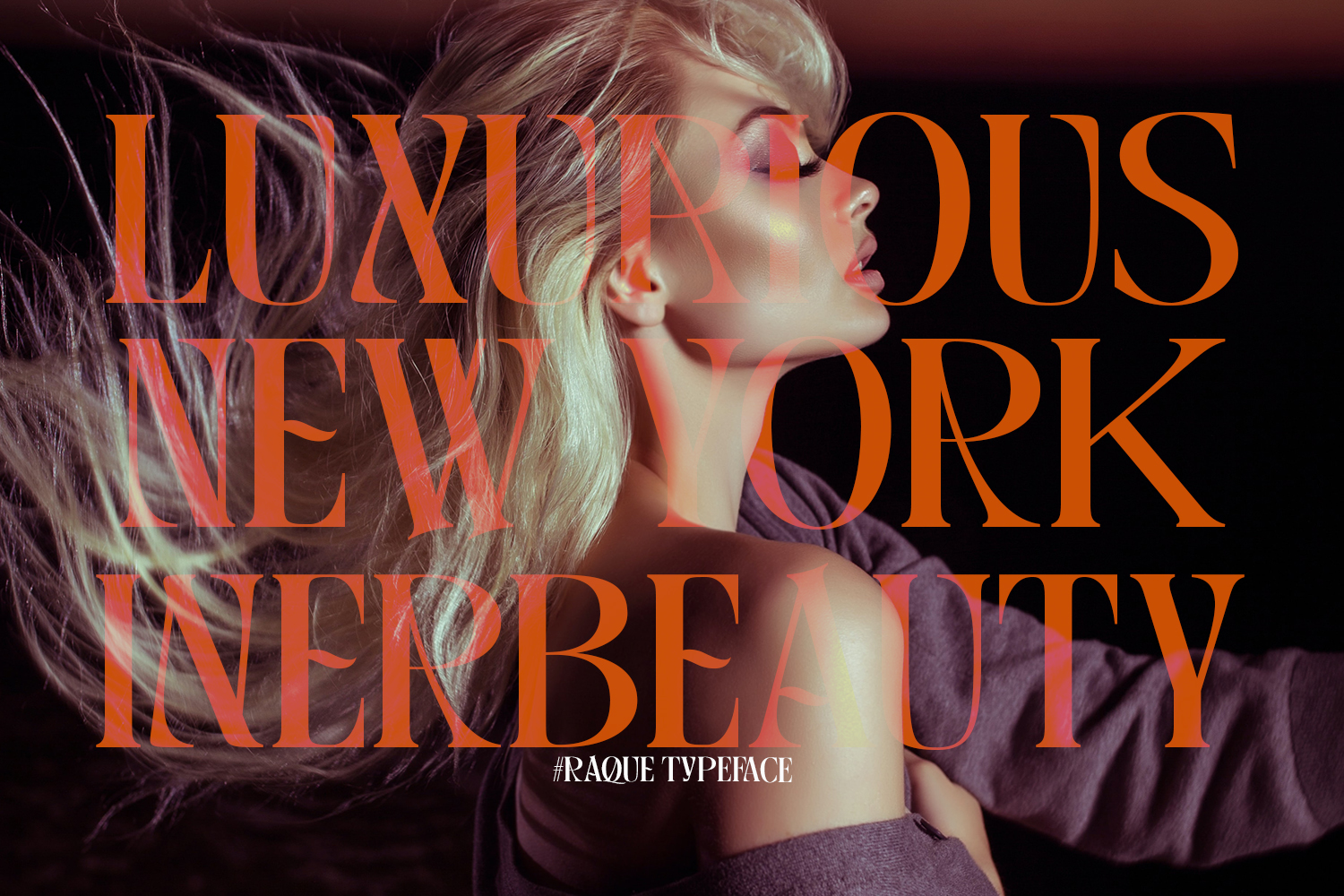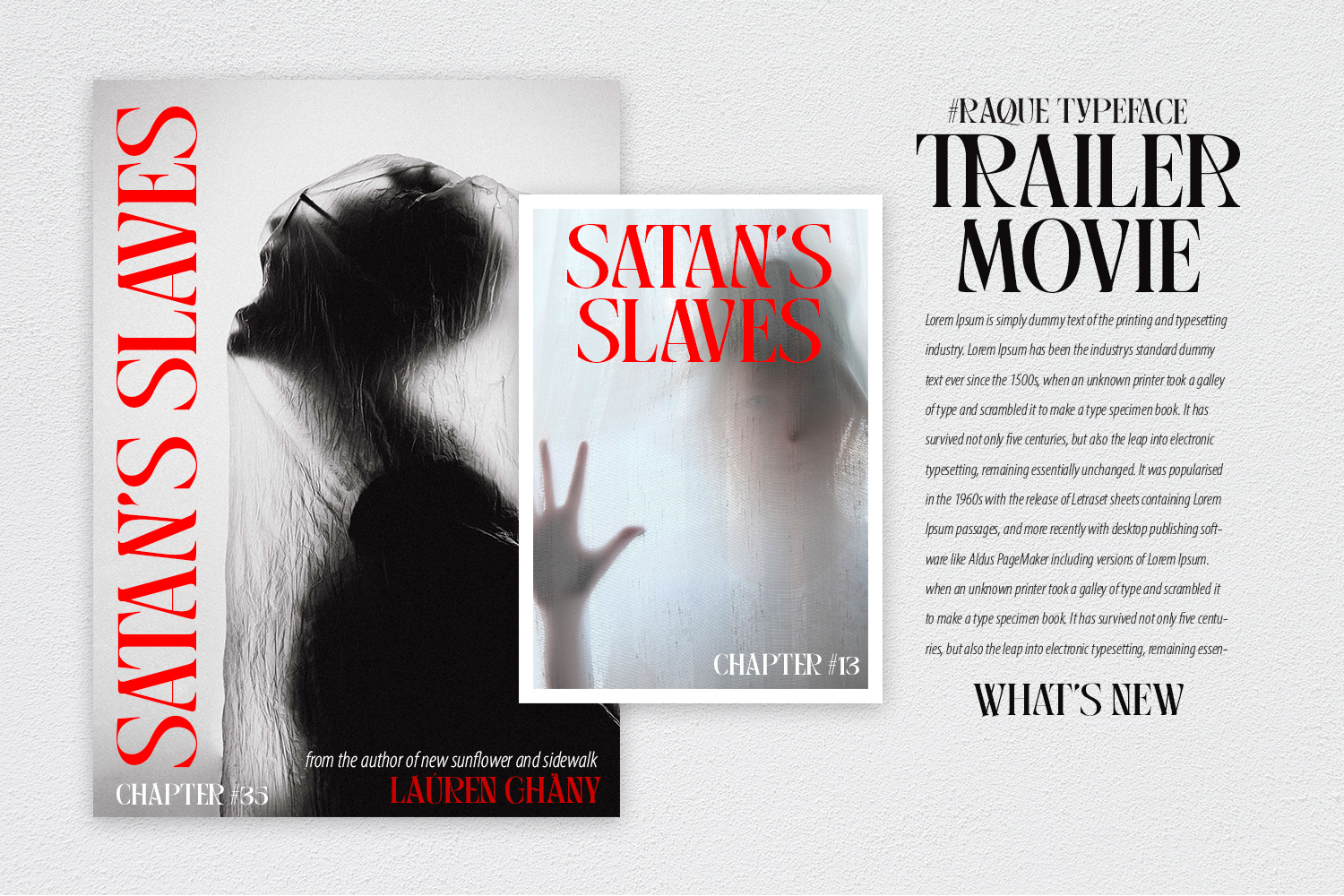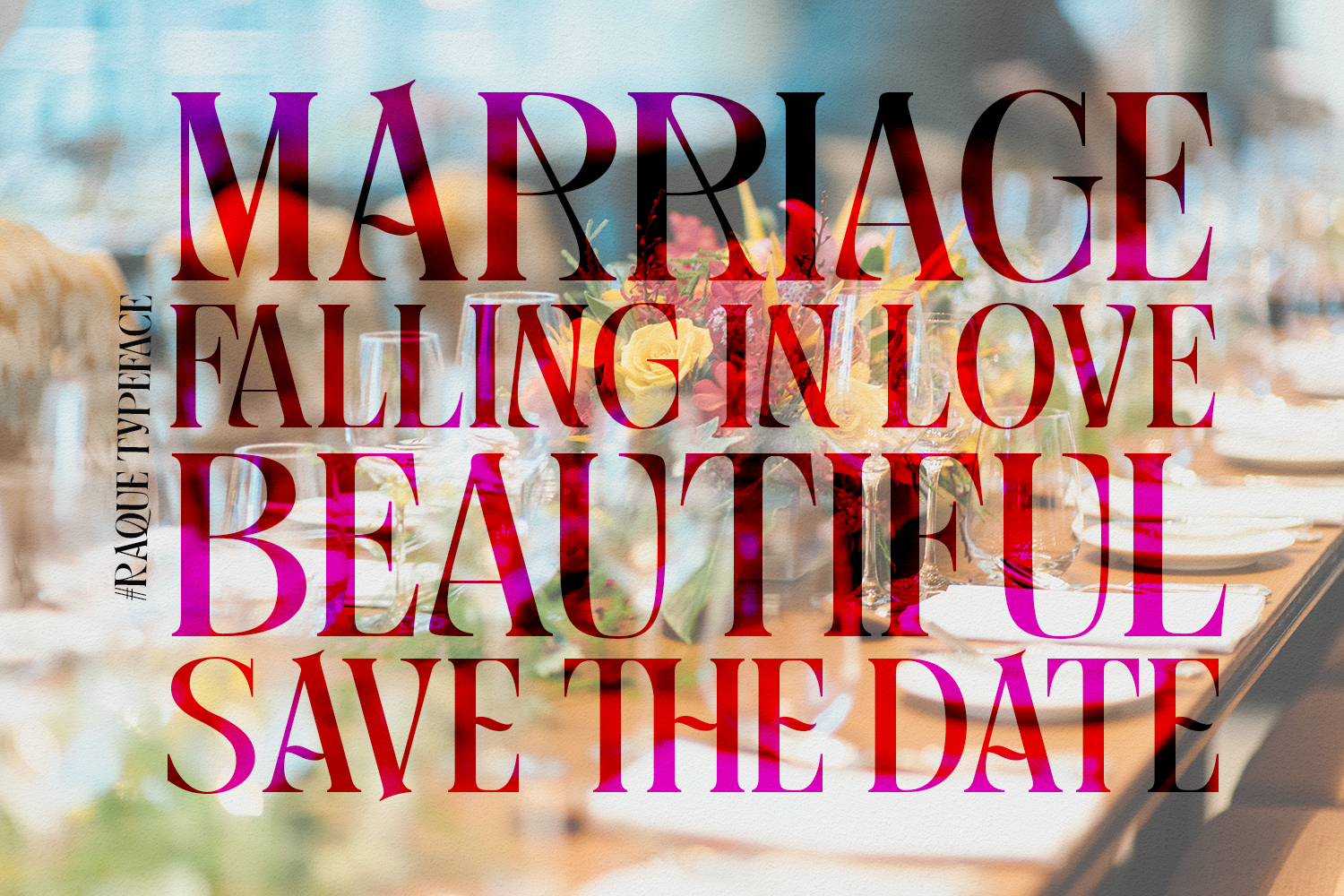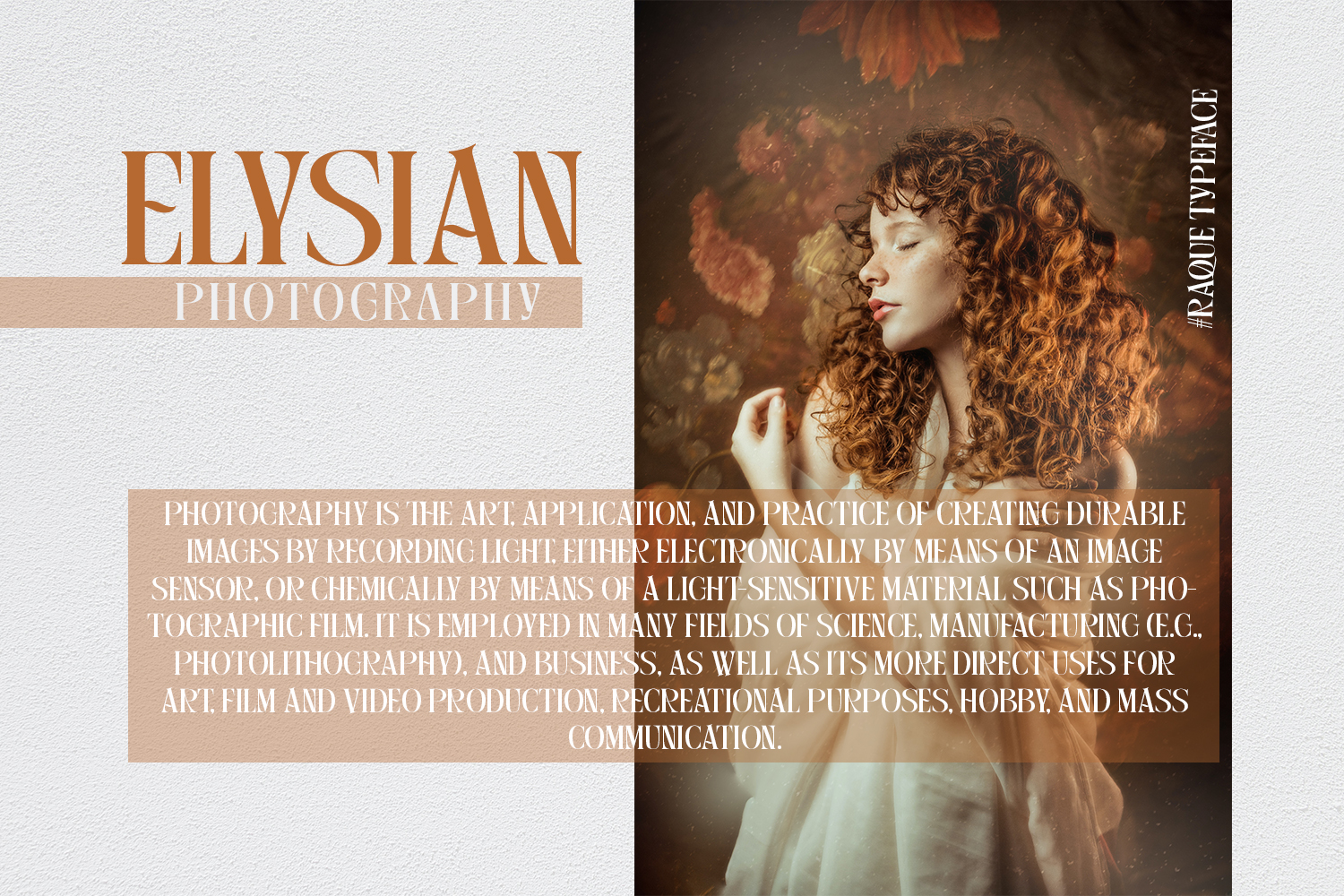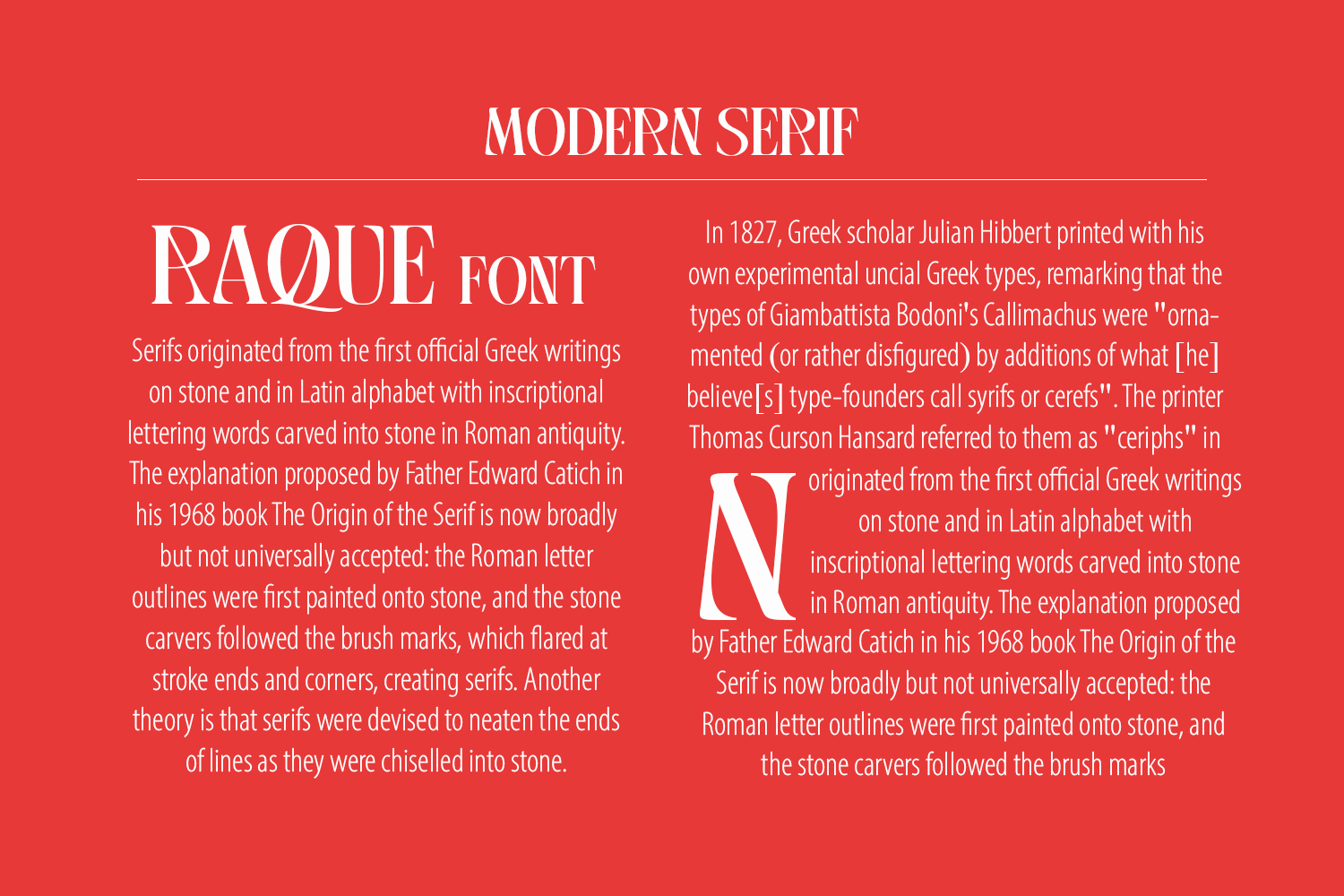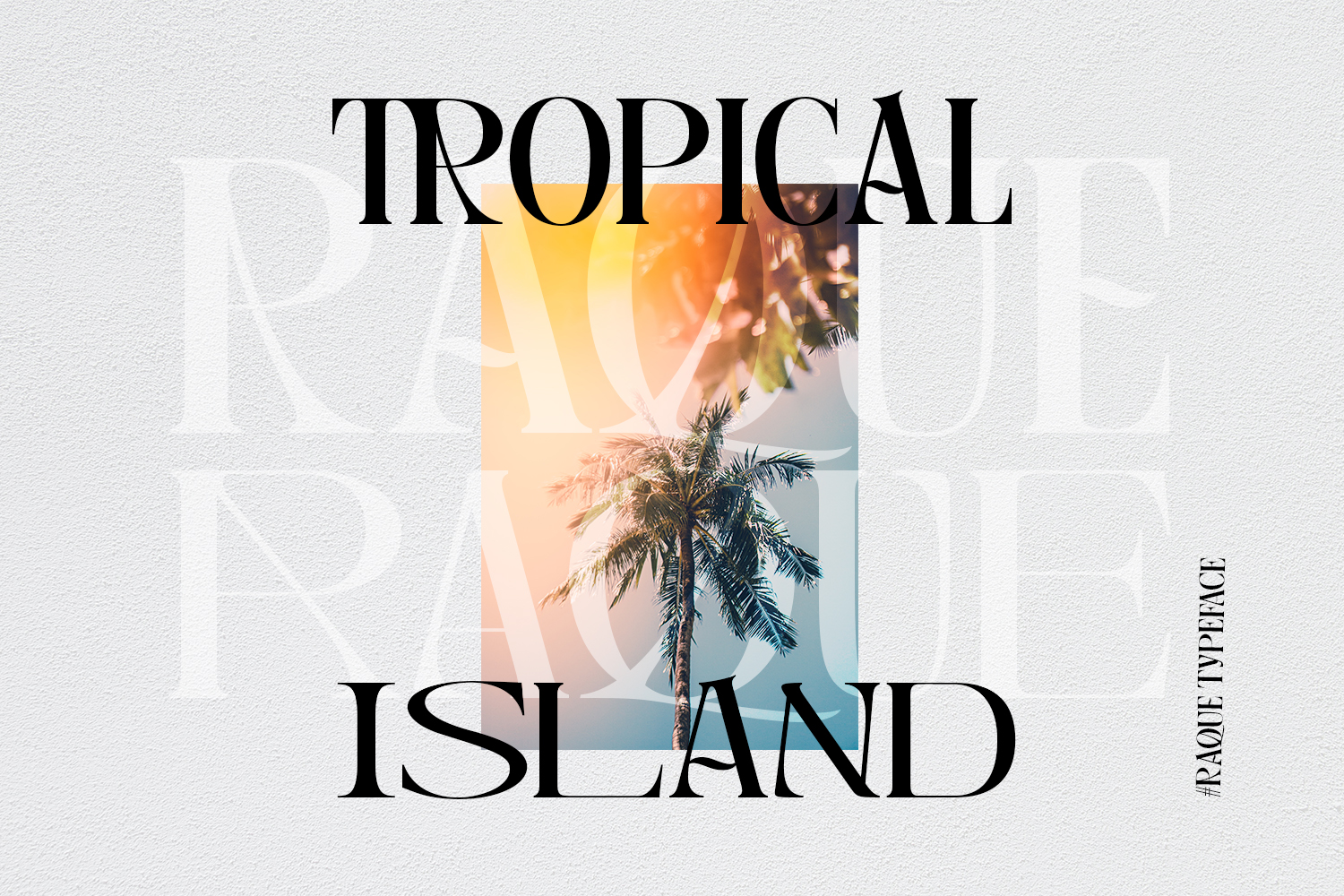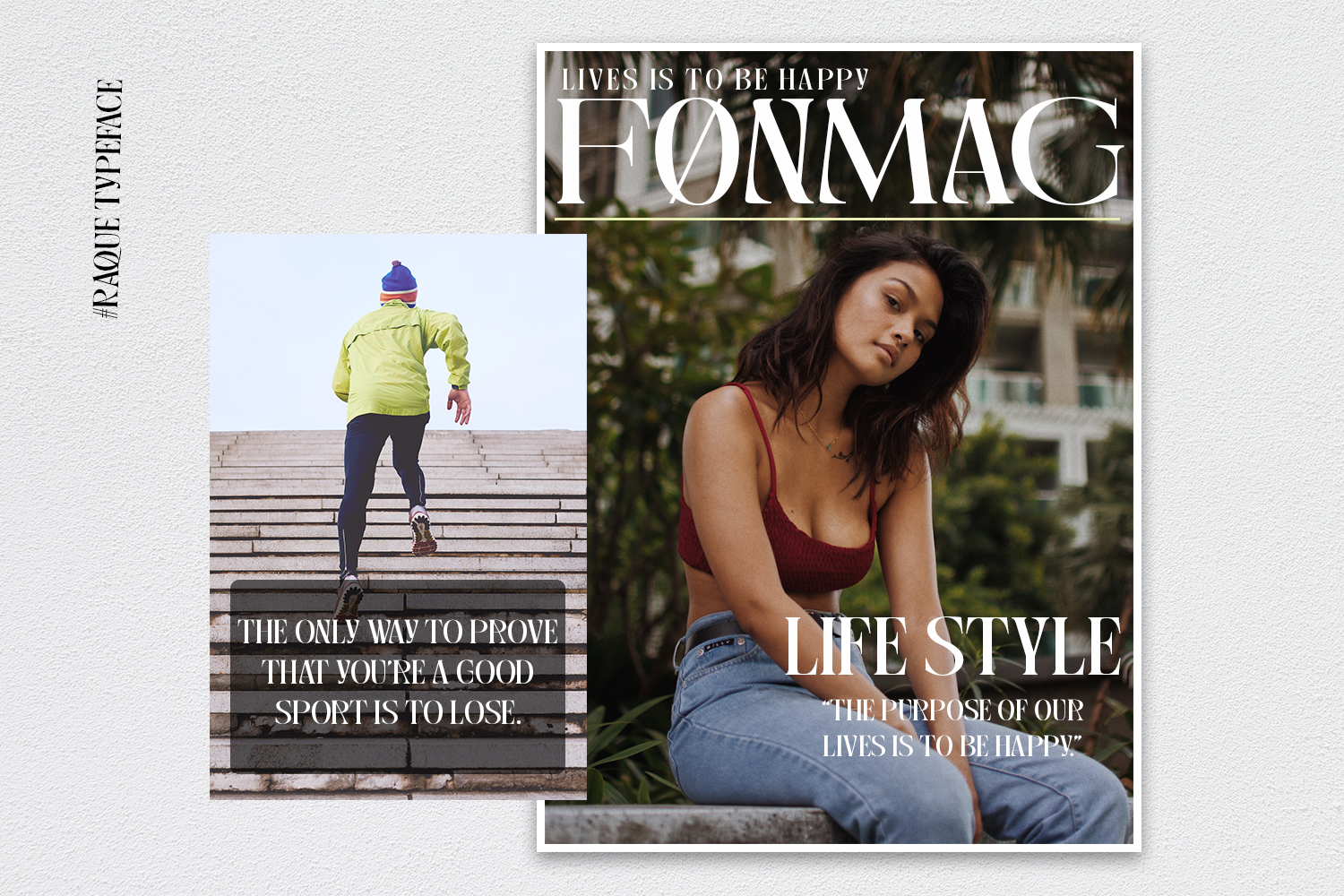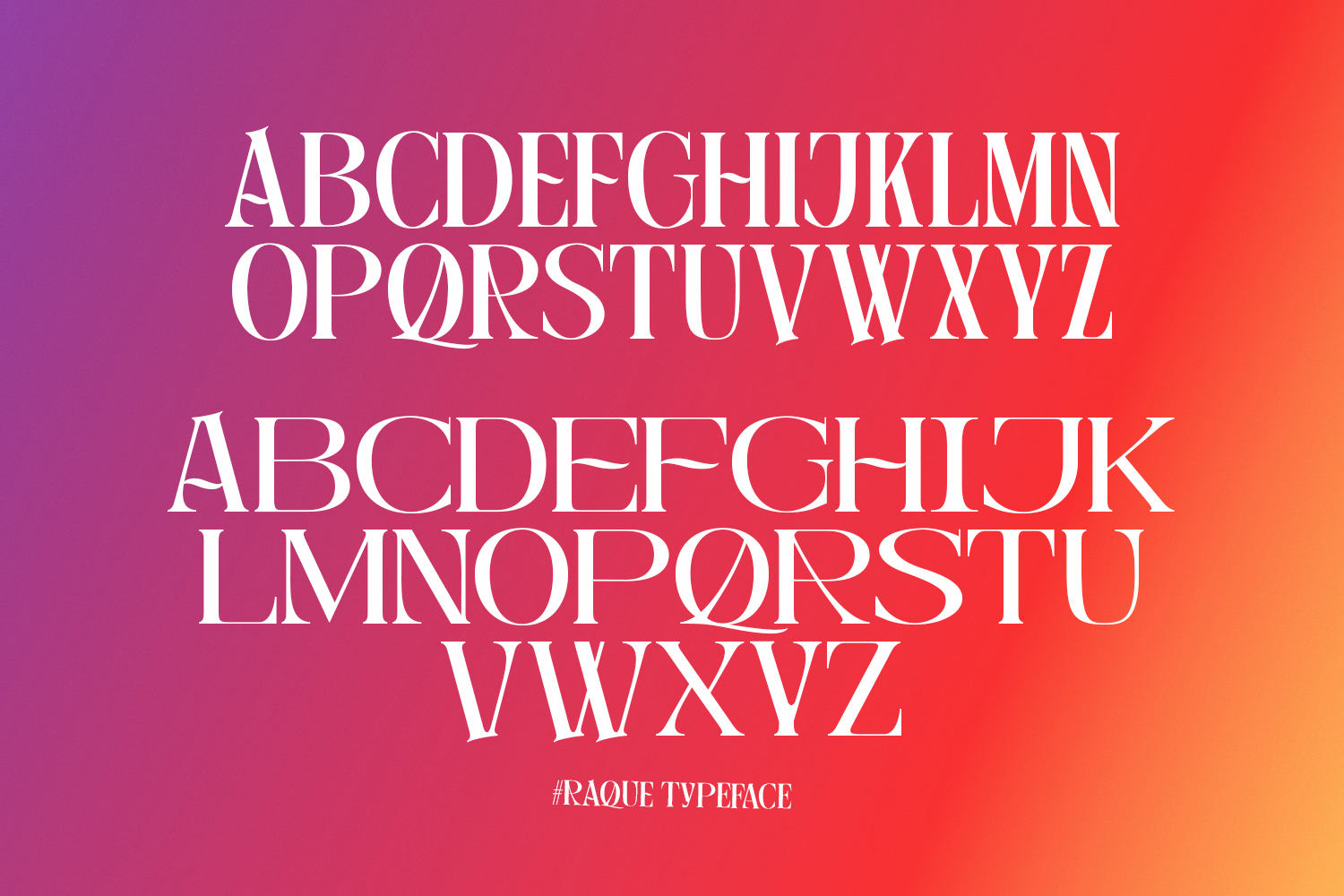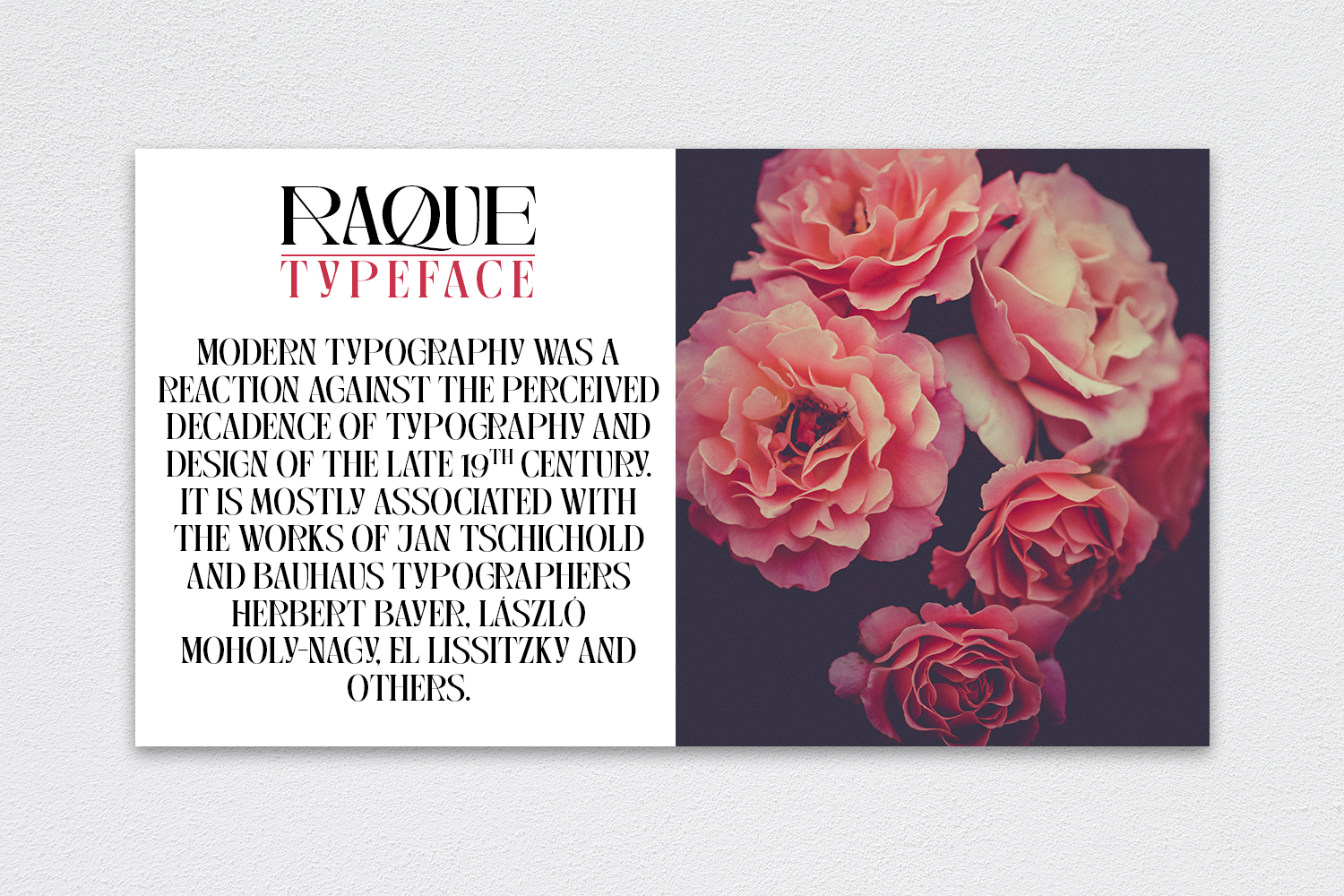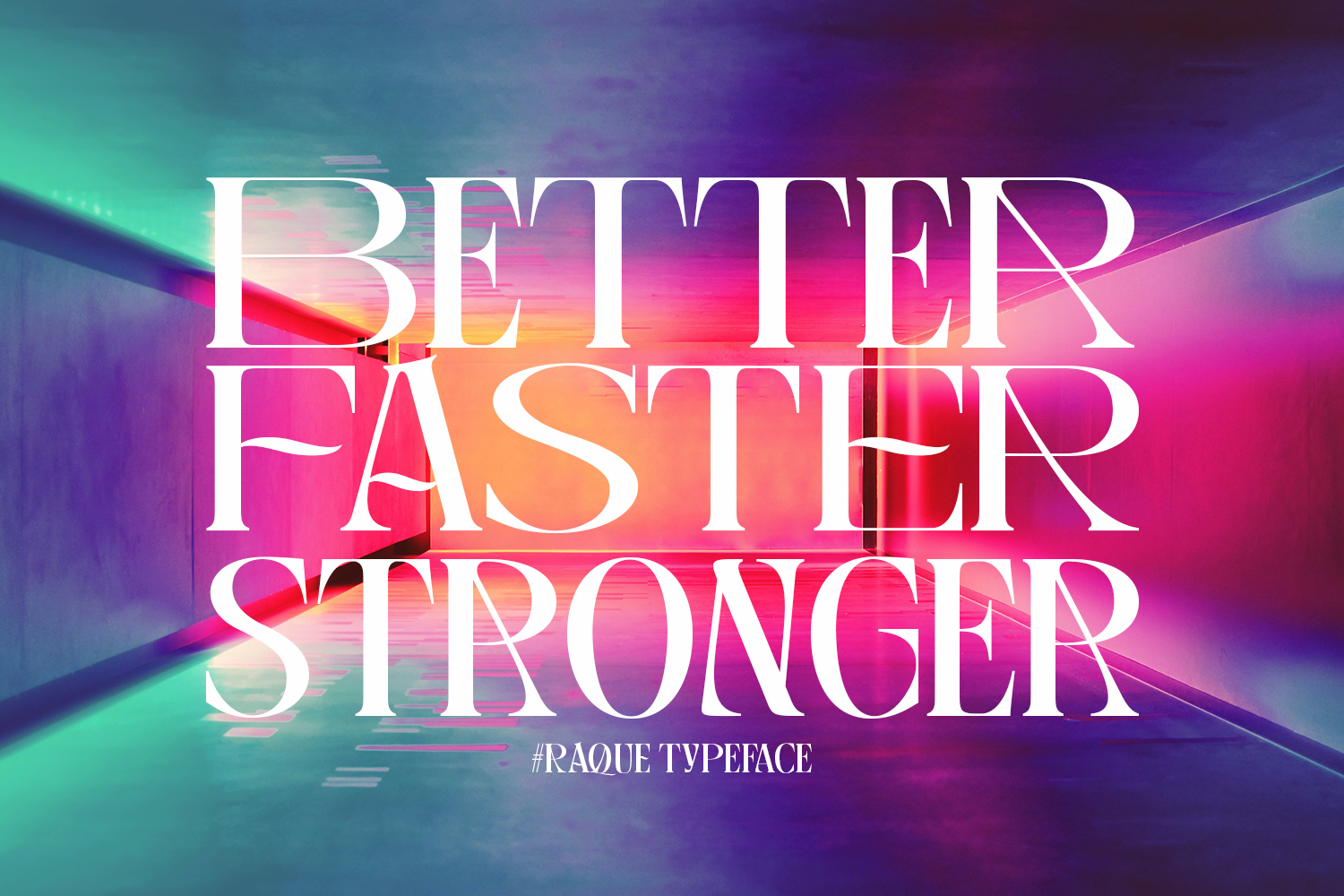
Raque – Modern Serif
Raque is a Capital Modern Serif, use this font for any branding, product packaging, invitation, quotes, t-shirt, label, poster, logo etc.
• Uppercase & Lowercase
• Number & Symbol
• International Glyphs
• Multilingual support
• Alternative
• Ligature